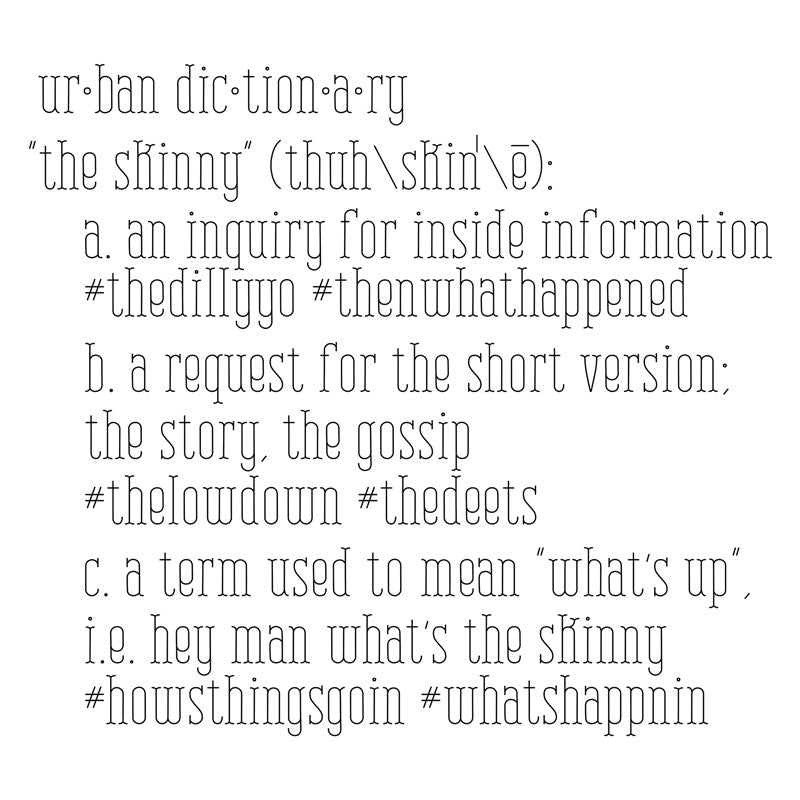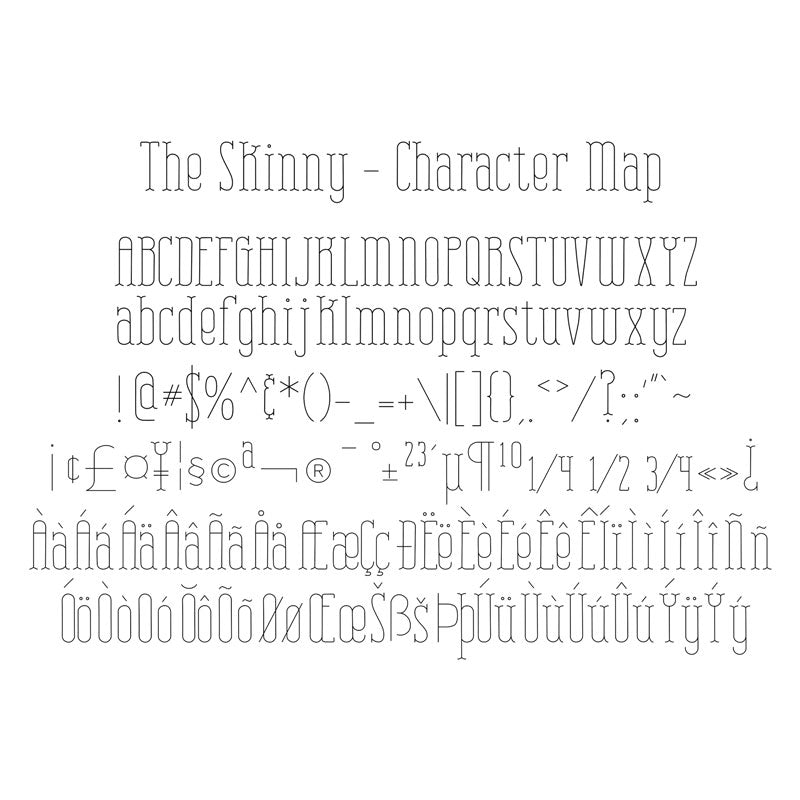
Rhino Single Line Engraving Font - "The Skinny"
SLF The Skinny
Fresh. Funky. Fun. Unique.  Single Line Fonts has done it again with precise attention to detail - every line, every dot, every curve.
Features:
• San serif lettering style
• Clean lines, smooth curves, close join points, and precise lettering alignment